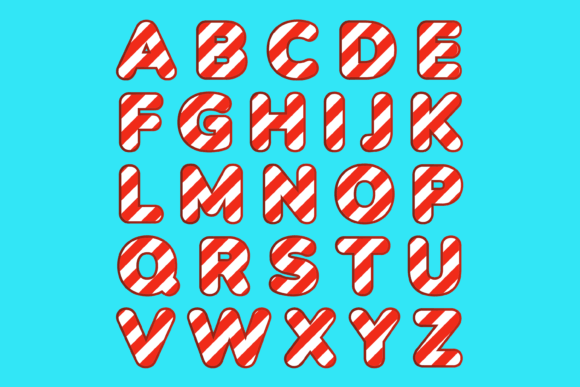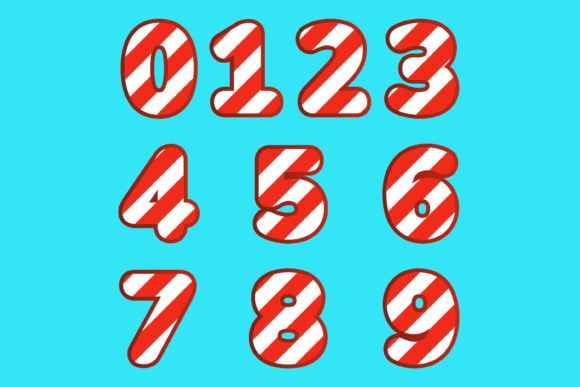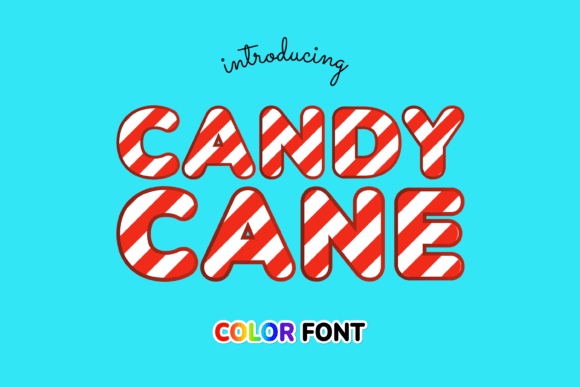
Candy Cane Font
About Candy Cane Font
Candy Cane is a delightful and festive color font that captures the essence of the holiday season. With its charming design adorned with traditional Christmas candies, Candy Cane font brings a playful and joyful touch to your designs.
This font is perfect for adding a sweet and whimsical element to your custom designs, DIY crafts, and any other creative project that could benefit from a touch of holiday magic. The colorful candies incorporated into each letter make Candy Cane font a visually striking choice that instantly conveys the spirit of Christmas.
Whether you’re creating holiday greeting cards, invitations, party decorations, or even digital artwork, Candy Cane font will bring a burst of cheer and excitement. Its unique and eye-catching design is sure to captivate the attention of viewers and evoke feelings of nostalgia and joy.
Let Candy Cane font add a touch of sweetness and festivity to your creative projects. Its playful design and vibrant colors make it a versatile choice for various applications, allowing you to spread joy and celebrate the magic of Christmas through your designs. Get ready to indulge in the holiday spirit and create delightful creations with Candy Cane font!